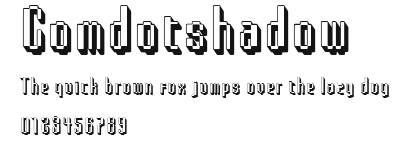
• Font Name: Comdotshadow
About Comdotshadow.ttf
Comdotshadow.ttf is a modern, elegant sans-serif font designed for ultimate readability and visual harmony. Perfect for branding, headlines, web design, and print materials.